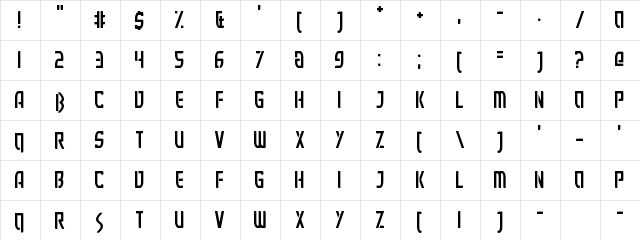
Executionist Regular
Design Context for Executionist Typeface
Executionist is a composed and adaptable typeface that performs quietly and consistently across a wide range of design contexts.